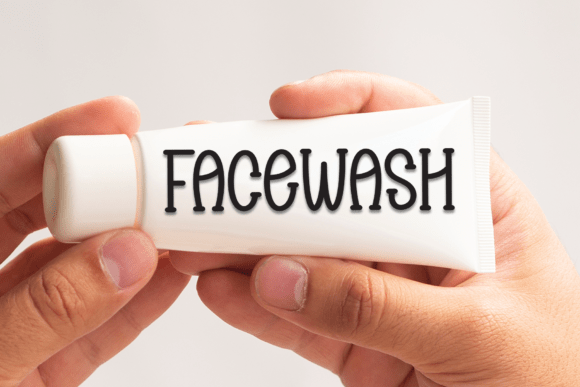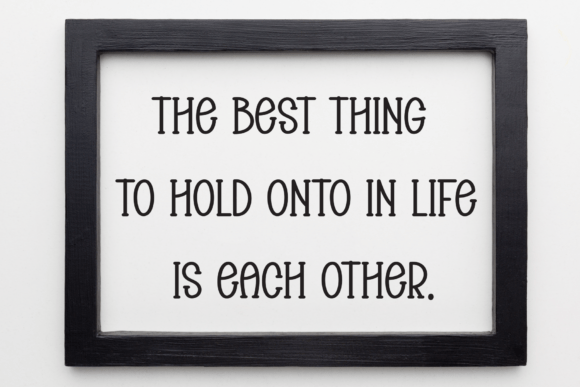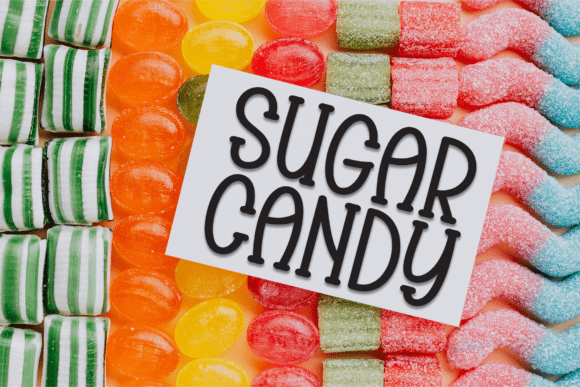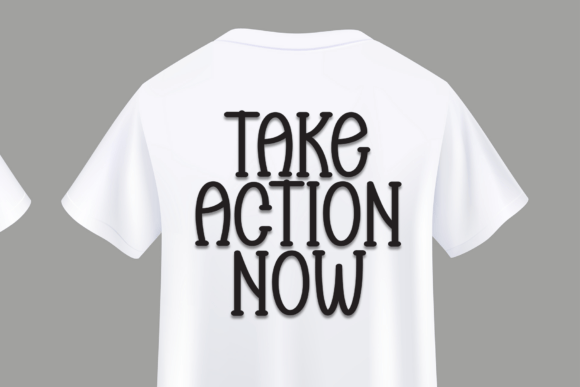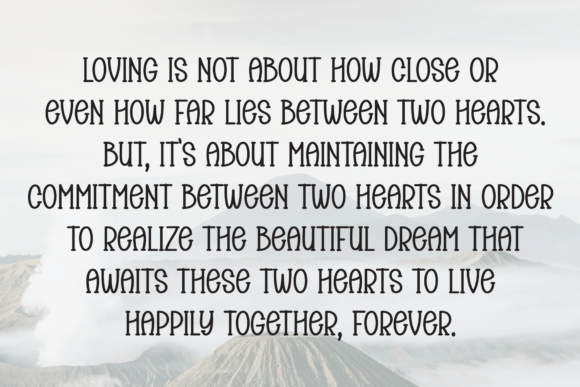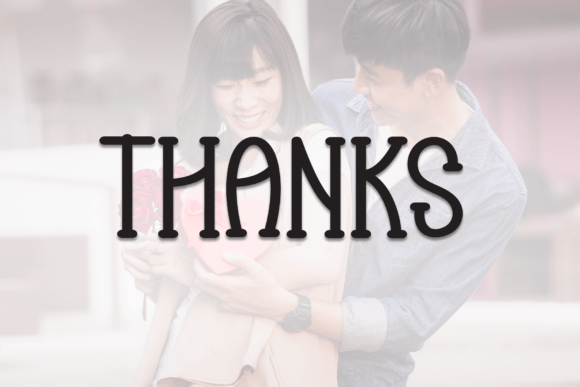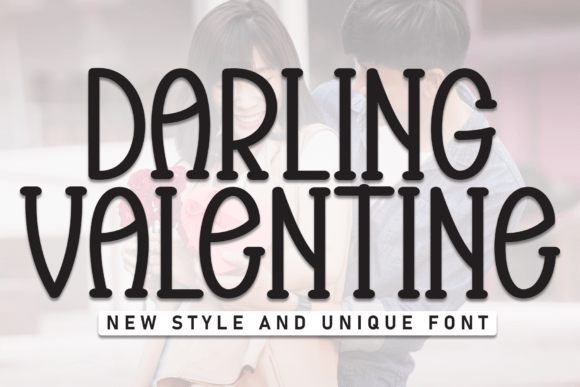
Introducing Darling Valentine Font: The Sweetest Addition to Your Design Collection
Are you on the hunt for a font that exudes warmth, playfulness, and a dash of whimsy? Look no further than the Darling Valentine Font, a charming handwritten display font that’s sure to capture the hearts of designers and crafters alike. This delightful typeface is the perfect infusion of sweetness and artistry, making it an excellent choice for a wide range of design projects.
A Font that Brings Joy and Charm
The Darling Valentine Font is more than just a typeface – it’s an experience. Its warm personality shines through in every letter, subtly transforming your designs into enchanting creations that are sure to leave a lasting impression. Whether you’re working on wedding invitations, greeting cards, or any other project that yearns for a touch of joy and charm, this font is the perfect companion.
Wedding invitations and greeting cards are special occasions that call for a font that’s both elegant and playful. The Darling Valentine Font fits the bill perfectly, bringing a playful dimension to your designs that’s sure to delight. Its whimsical touch adds a romantic flair to wedding invitations, making them truly unforgettable. Similarly, its friendly and approachable vibe makes it an excellent choice for greeting cards, adding a personal touch that’s sure to make the recipient feel special.
A Delightful Blend of Fun and Artistry
What sets the Darling Valentine Font apart is its delightful blend of fun and artistry. Its handwritten charm is evident in every letter, making it feel like a bespoke creation that’s been crafted just for you. The font’s playful nature makes it an excellent choice for designers and crafters who want to add a touch of personality to their work. Whether you’re creating a logo, a poster, or a social media graphic, this font is sure to bring a smile to your audience’s faces.
Key Features of Darling Valentine Font
- Handwritten display font: The Darling Valentine Font is a beautiful handwritten display font that’s perfect for headlines, titles, and short text passages.
- Whimsical and playful: This font is infused with a playful and whimsical touch, making it perfect for designs that require a dash of personality.
- Warm and charming: The font’s warm personality shines through in every letter, making it an excellent choice for designs that require a touch of warmth and charm.
- Elegant and refined: Despite its playful nature, the Darling Valentine Font is also elegant and refined, making it suitable for a wide range of design projects.
- Pair it with complementary fonts: The Darling Valentine Font pairs well with a range of fonts, from elegant serif fonts to playful sans-serif fonts.
- Use it for headlines and titles: The font’s bold and playful nature makes it perfect for headlines and titles.
- Add a personal touch: Use the Darling Valentine Font to add a personal touch to your designs, whether it’s a wedding invitation or a social media graphic.
In conclusion, the Darling Valentine Font is a charming handwritten display font that’s sure to capture the hearts of designers and crafters alike. Its delightful blend of fun and artistry makes it an excellent choice for a wide range of design projects, from wedding invitations to social media graphics. With its warm personality and playful nature, this font is sure to bring a touch of joy and charm to your designs.